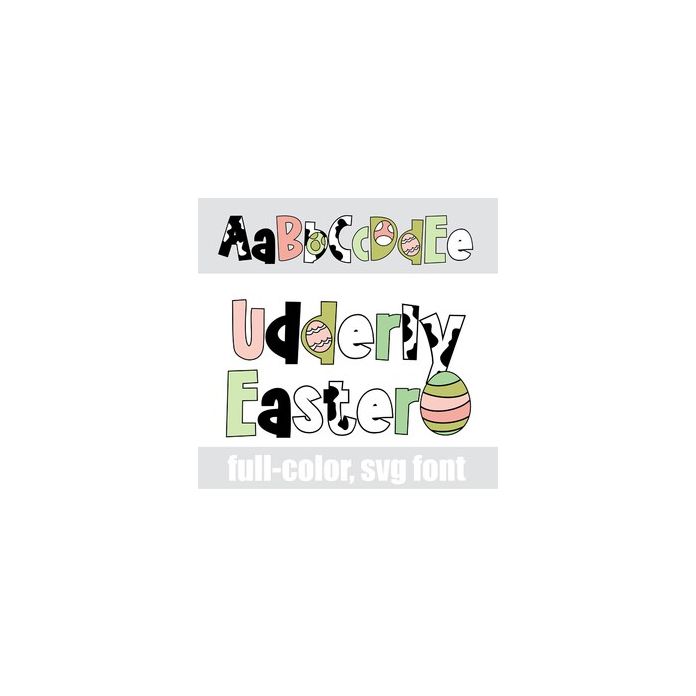
This adorable, full-color font features cow print and an Easter color palette. There is an alt case w/ additional colors you can access through your system or Silhouette's glyph map.